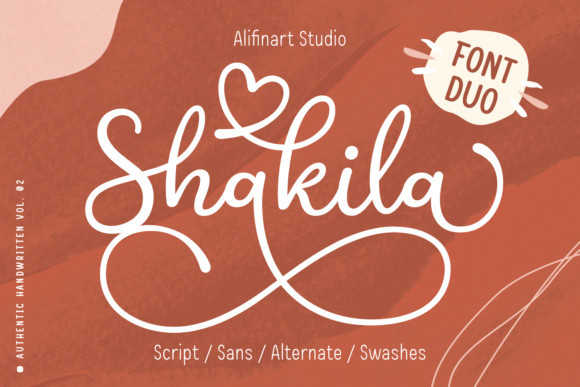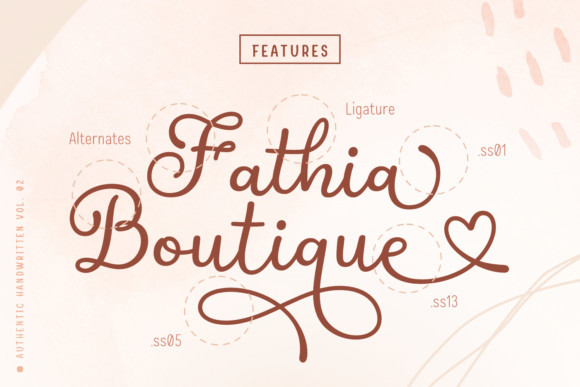
Shakila Font
Shakila is a lovely and delicate duo font (sans serif and script), that exudes elegance and class. This font was particularly crafted for those who need a beautiful and refreshing look to their designs.